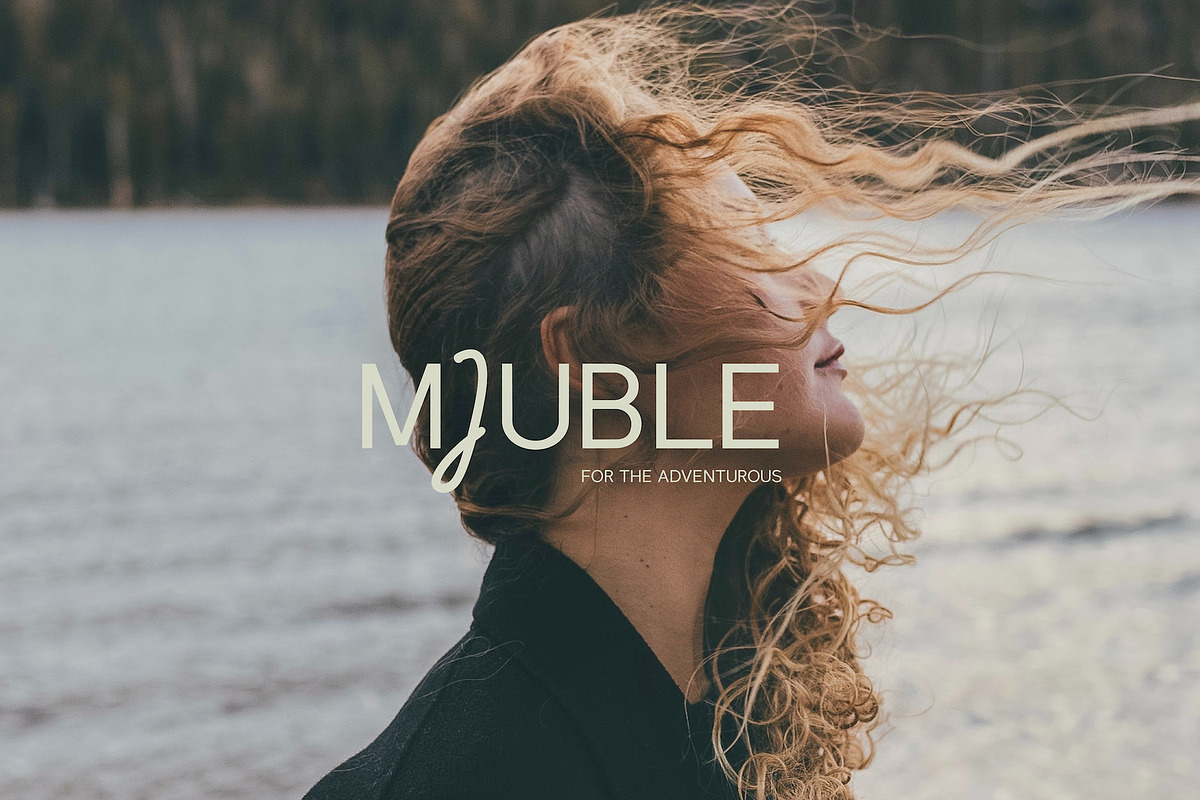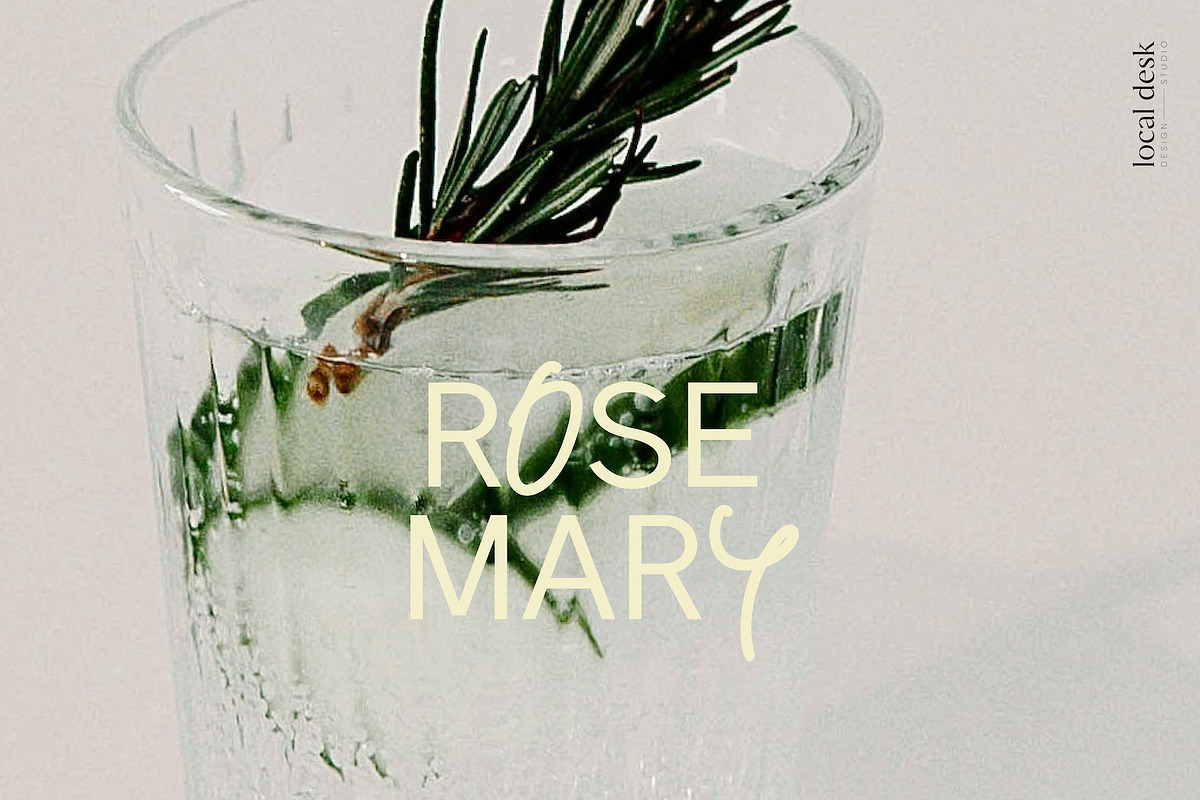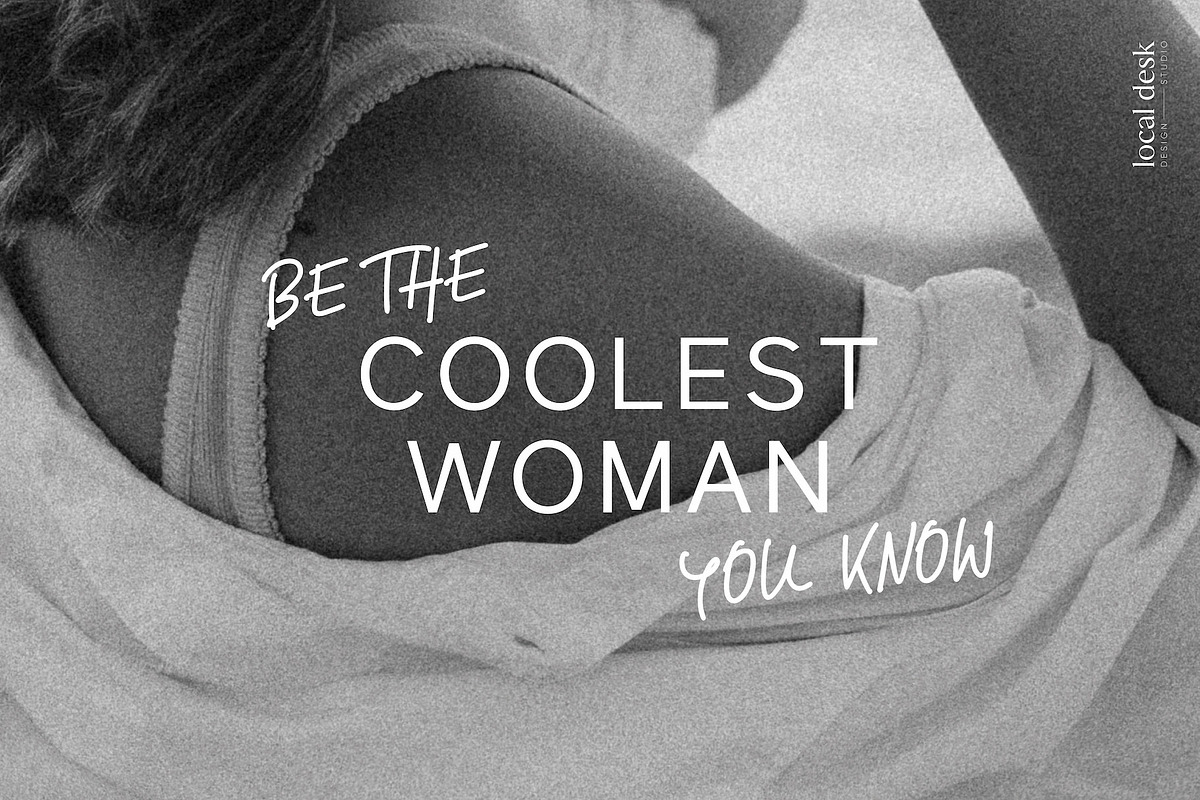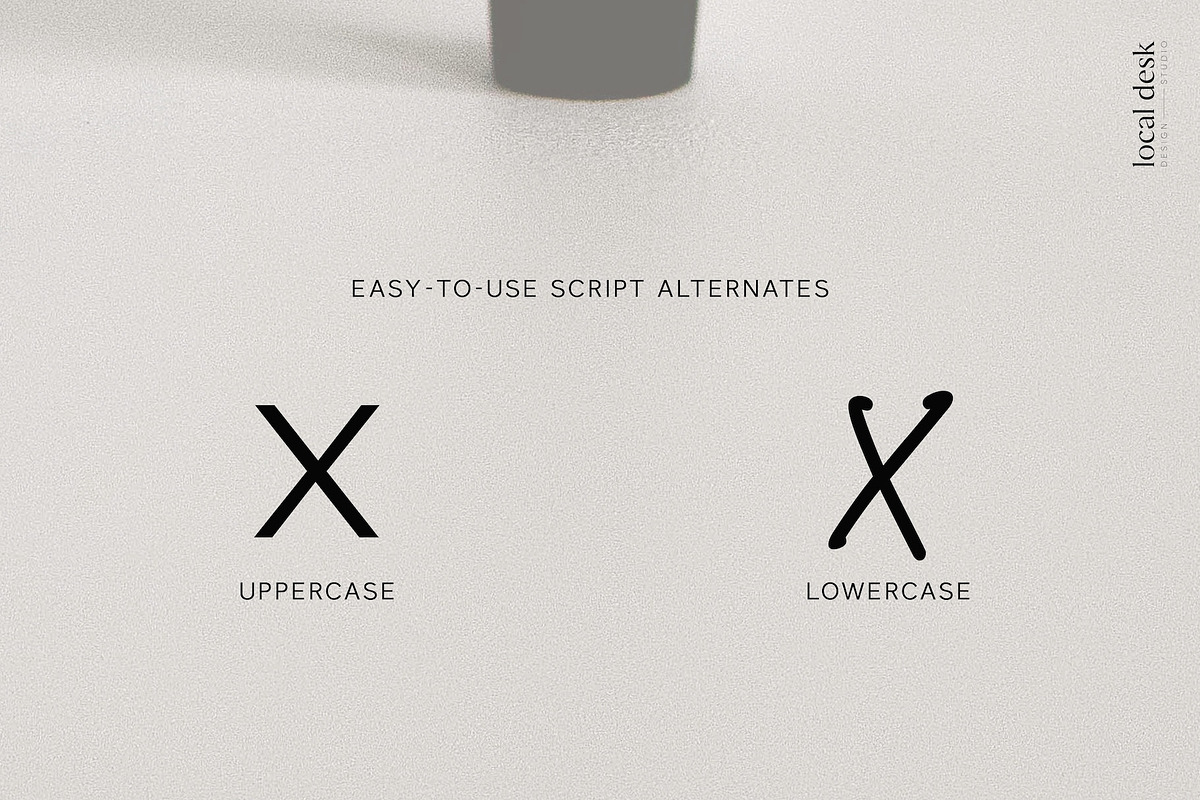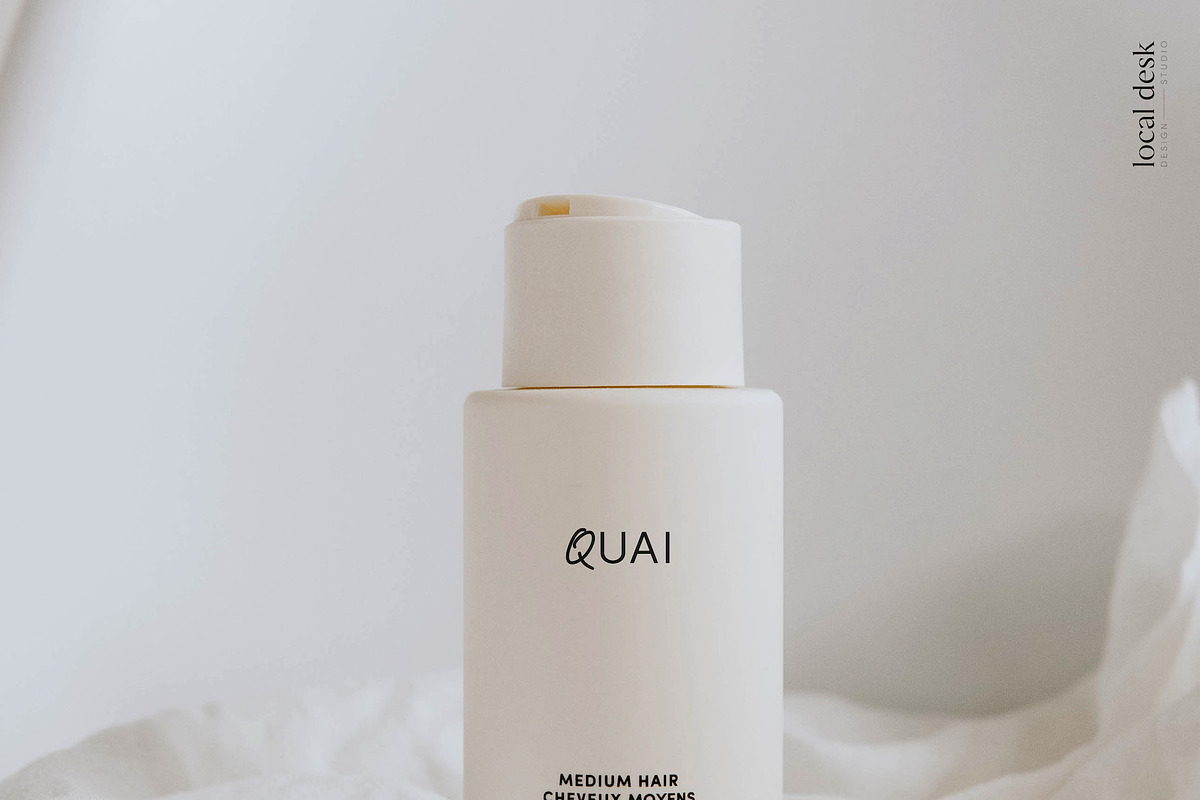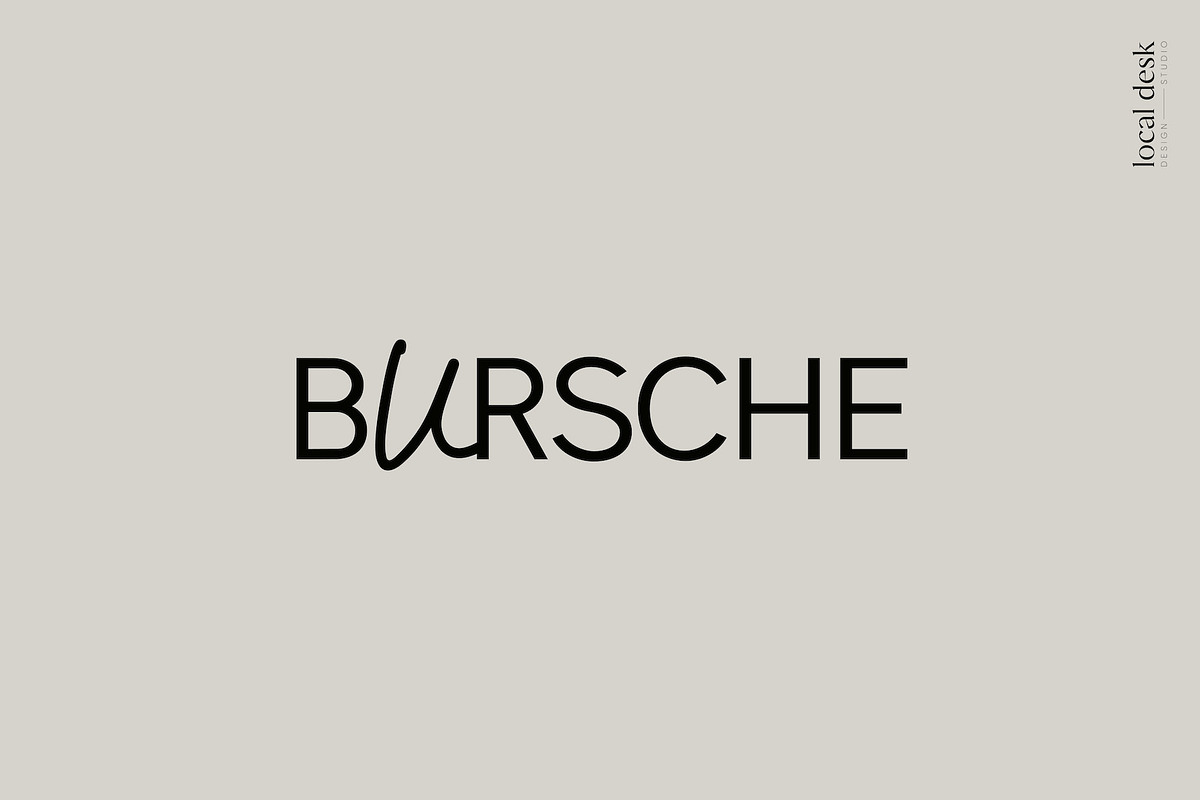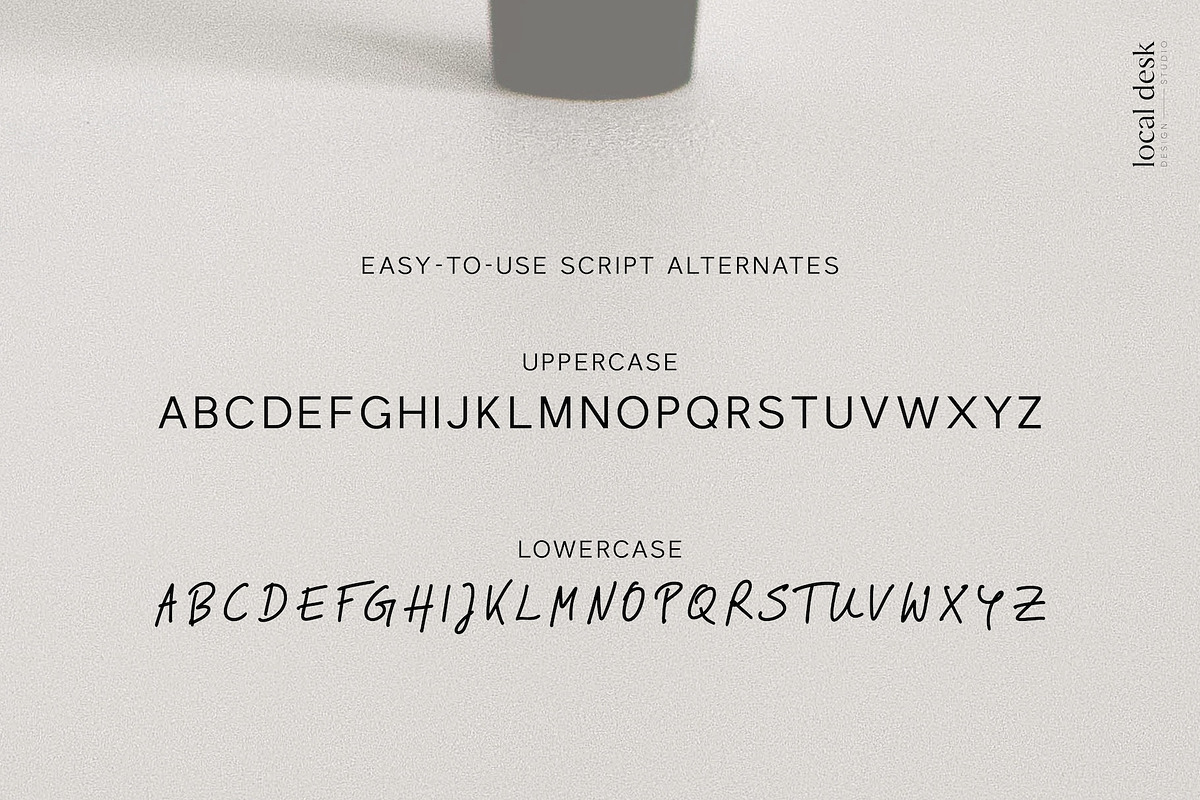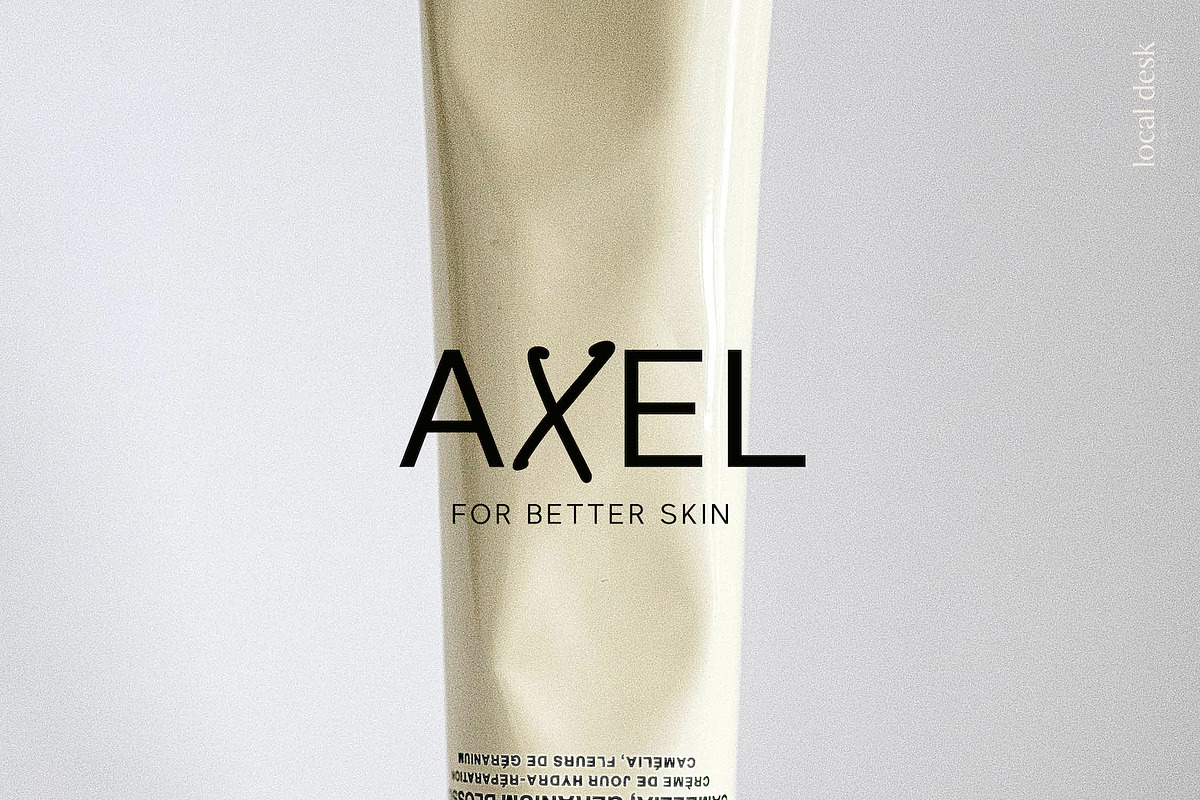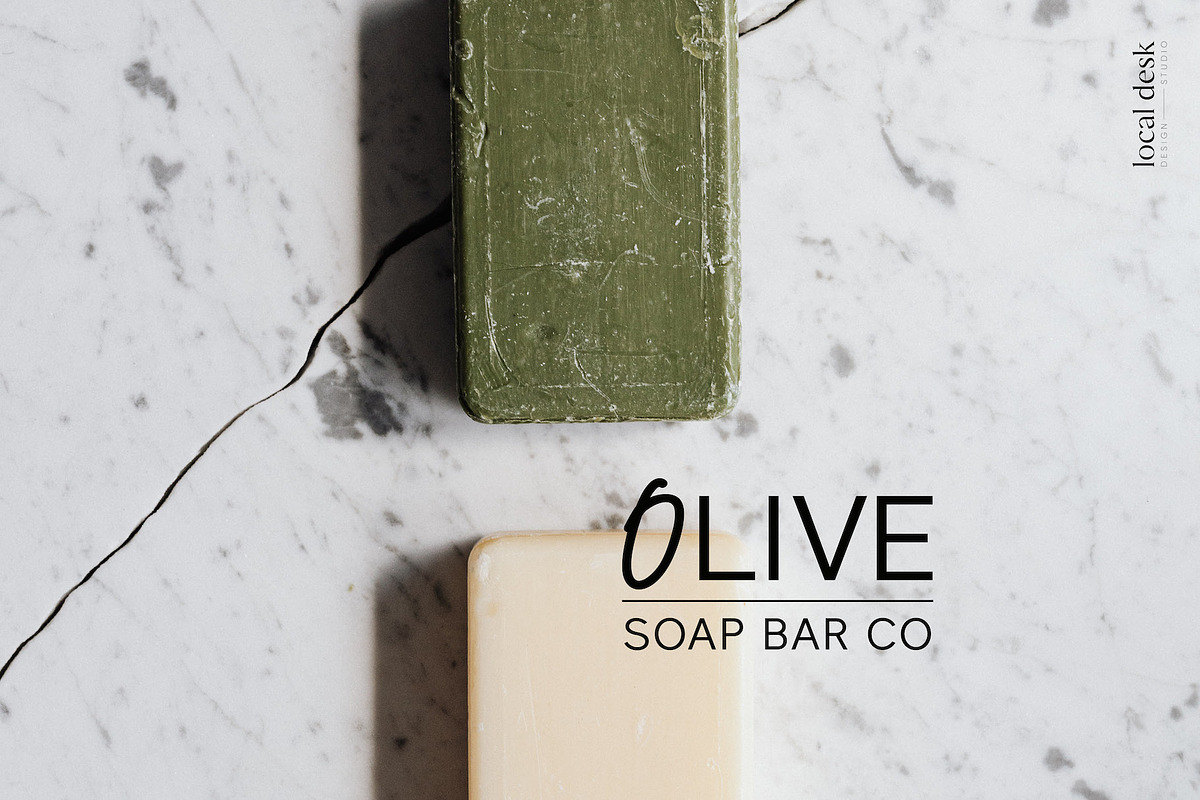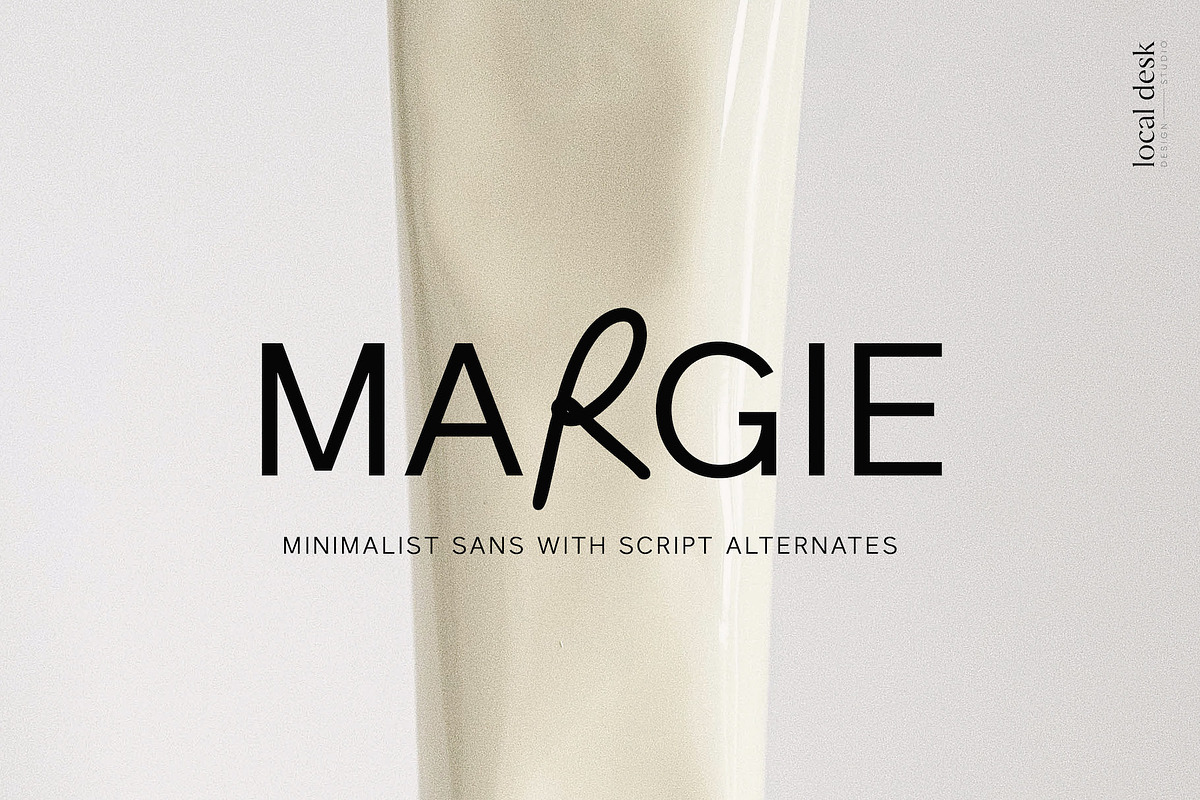
Margie – Sans with Script Alternates
Margie is a clean & minimalist sans serif typeface that comes with cool script alternates. The mix of those two styles within this font is perfectly suited for designing outstanding logos & brands, refined packaging, modern website headers, and so much more!
This font is equipped with two uppercase alphabets – clean sans as the basis & script alternates – to make everything you design look refined, super unique and professional. Margie saves you the precious time it takes to find the perfect font pair for your next design project. The script alternates can be used by simply typing out the appropriate lowercase letter. This also means, that you can use this font very easily in any software, such as Canva.
This font is perfect for: bespoke branding, unique cover designs, stylistic headings, customized packaging, meaningful quotes and so much more.
- Uppercase Letters
- 26 Script Alternates (accessible by simply typing the appropriate lowercase letter)
- Numbers & Punctuation & Basic Symbols
- Non-English support